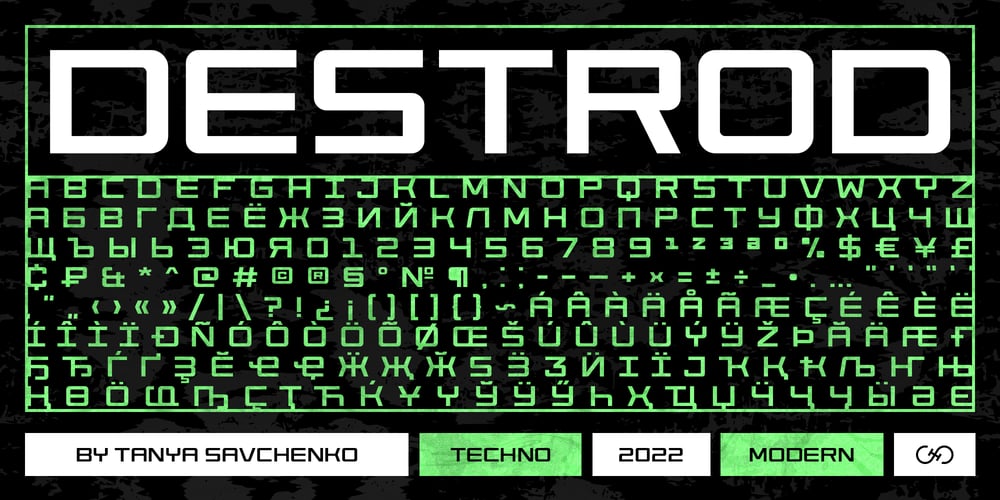
Destrod
Destrod font
Destrod Font Family was designed by Tetiana Savchenko and published by Tanya Savchenko. Destrod contains 1 styles and family package options. Destrod is a modern techno sans serif font. Its futuristic and minimalist style makes it incredibly suitable for all your projects that need a sci-fi touch.Uppercase letters with alternate characters in lower case.Included:Latin base and extended.Cyrillic base and extended.Multilingual support.